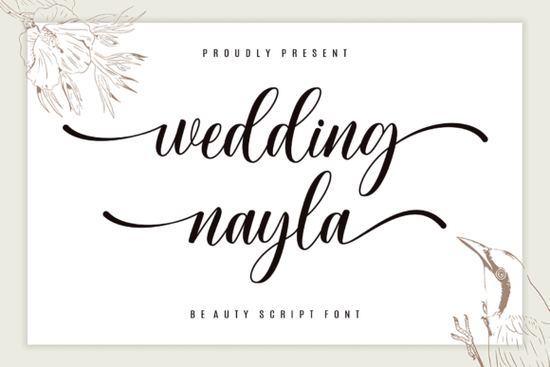
Wedding Nayla is a graceful script font designed for invitations, signage, branding, and any project where elegance matters most. If you've been searching for a typeface that brings a refined, hand-lettered feel to wedding stationery or romantic designs, this font delivers that look without requiring calligraphy skills. It's a polished script with flowing letterforms, soft curves, and just the right amount of decorative detail.
Below, I'll walk through what makes Wedding Nayla worth a closer look, how to use it in real projects, and how it compares to other popular script fonts.
What Does Wedding Nayla Look Like?
This is a cursive script font with a classic wedding aesthetic. The letters connect fluidly, giving text a handwritten quality that feels personal and romantic. Uppercase characters feature sweeping swashes, while the lowercase letters maintain readability even at smaller sizes.
Here are the standout visual qualities:
- Flowing connections between letters that mimic natural brush or pen strokes
- Graceful swashes on capital letters for a decorative touch
- Balanced weight not too thin, not too bold that works well in print and digital formats
- Refined details that give each word an elegant, sophisticated presence
The overall impression is one of timeless beauty. It doesn't lean trendy or overly modern, which means designs using this font won't feel dated a year from now.
Who Is This Font Best For?
Wedding Nayla works well for anyone creating romantic, celebratory, or upscale designs. That includes:
- Wedding stationery designers working on invitations, RSVP cards, menus, and table numbers
- Print-on-demand sellers creating products like mugs, tote bags, or wall art with wedding or love-themed quotes
- Small business owners in the event planning, floristry, or bridal industry who need elegant branding
- Crafters and hobbyists using Cricut or Silhouette machines for personal DIY projects
- Social media managers creating romantic or anniversary-themed graphics
If your project calls for a sophisticated, handwritten script, this font fits naturally into that space.
Where Can You Use Wedding Nayla?
This script font is versatile enough for both personal and commercial projects. Some common uses include:
- Wedding invitations and save-the-dates the most obvious and popular use case
- Logo design for bridal shops, event planners, or boutique brands
- Greeting cards for anniversaries, Valentine's Day, or engagements
- Website headers for wedding blogs or romantic product pages
- Photo overlays for engagement or couple portrait sessions
- Gift tags and packaging for wedding favors or handmade goods
It pairs nicely with clean sans-serif fonts for body text, keeping the overall design balanced and easy to read.
How Does It Compare to Other Script Fonts?
If you're browsing script fonts and trying to decide, here's how Wedding Nayla stacks up against similar options:
Sundary Beach Duo is another elegant choice, but it leans more toward a relaxed, coastal aesthetic. It's great for summer events or beach-themed branding but doesn't carry the same formal wedding feel.
For a calligraphic option with a slightly bolder stroke, Belgia Calligraphy is worth considering. It has a more traditional calligraphy look that works beautifully for formal certificates and invitations.
If you want something completely different playful rather than elegant Children's Scribbles brings a fun, hand-drawn style suited for kids' projects and casual designs.
And for themed or novelty projects, a Disney-inspired typeface adds a whimsical, storybook quality that works well for children's party invitations or playful branding.
Each of these fonts serves a different creative need. Wedding Nayla stands out specifically for its refined elegance and romantic character.
Practical Tips for Working with Script Fonts
Getting the best results from any script font including Wedding Nayla comes down to a few design basics:
- Give the letters breathing room. Increase letter spacing slightly if the swashes feel crowded.
- Pair it wisely. Use a simple sans-serif like Montserrat or Lato for any supporting text.
- Test at multiple sizes. Script fonts can lose clarity at very small sizes, so check readability before printing.
- Use high-contrast backgrounds. Light text on dark backgrounds (or vice versa) helps decorative scripts remain legible.
- Don't overuse swashes. They look beautiful on headers and names but can clutter longer text blocks.